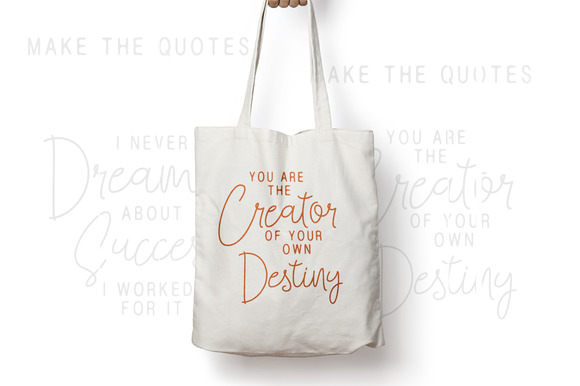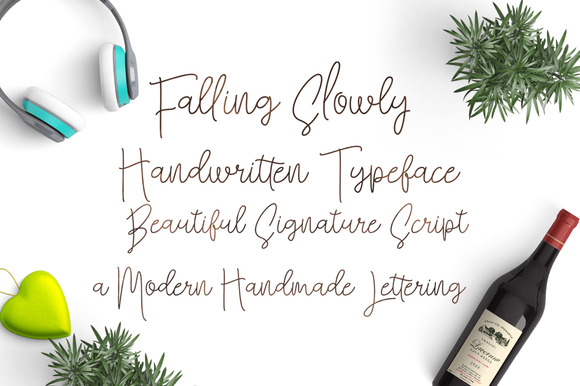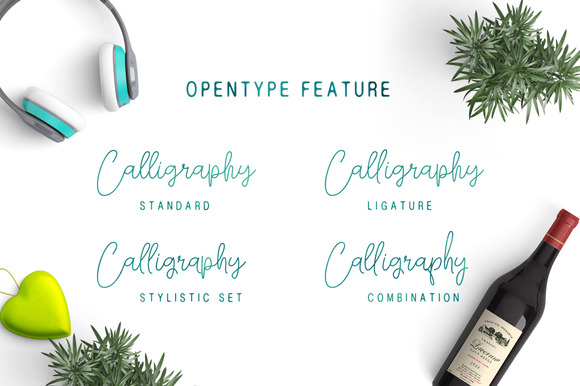
Falling Slowly Font: A Beautiful Handwritten Script Typeface
Falling Slowly Typeface is a beautiful hand written script typeface with a natural look. This stunning font is perfect for designers and crafters who are looking for a unique and elegant way to add a personal touch to their projects. In this article, we’ll take a closer look at the Falling Slowly Font, its features, and how you can use it to elevate your designs.
What is Falling Slowly Font?
Falling Slowly Font is a handwritten script typeface that is designed to mimic the natural flow of handwriting. It has a relaxed and casual feel, making it perfect for a wide range of design projects, from wedding invitations and greeting cards to branding and packaging. The font is created with a focus on legibility and readability, ensuring that your text is easy to read and understand.
Key Features of Falling Slowly Font
- Handwritten Script: Falling Slowly Font is a true handwritten script typeface, with each letter carefully crafted to mimic the natural flow of handwriting.
- Natural Look: The font has a natural, relaxed feel that makes it perfect for designs that require a personal touch.
- Legible and Readable: The font is designed with legibility and readability in mind, ensuring that your text is easy to read and understand.
- Versatile: Falling Slowly Font is perfect for a wide range of design projects, from wedding invitations and greeting cards to branding and packaging.
How to Use Falling Slowly Font
Falling Slowly Font is easy to use and can be incorporated into a wide range of design projects. Here are a few ideas to get you started:
- Wedding Invitations: Use Falling Slowly Font to create beautiful and elegant wedding invitations that set the tone for your special day.
- Greeting Cards: Add a personal touch to your greeting cards with Falling Slowly Font, perfect for birthdays, holidays, and special occasions.
- Branding and Packaging: Use Falling Slowly Font to create unique and eye-catching branding and packaging that stands out from the crowd.
- Digital Designs: Incorporate Falling Slowly Font into your digital designs, such as social media graphics, blog posts, and website headers.
Tips for Using Falling Slowly Font
Here are a few tips to keep in mind when using Falling Slowly Font:
- Keep it Simple: Don’t overcomplicate your design. Falling Slowly Font is perfect for simple, elegant designs that let the font shine.
- Experiment with Colors: Try out different colors and combinations to find the perfect look for your design.
- Mix and Match: Combine Falling Slowly Font with other fonts and design elements to create a unique and eye-catching design.
Falling Slowly Font is a beautiful handwritten script typeface with a natural look that is perfect for designers and crafters. With its elegant and relaxed feel, it’s perfect for a wide range of design projects, from wedding invitations and greeting cards to branding and packaging. By incorporating Falling Slowly Font into your designs, you can add a personal touch and create unique and eye-catching designs that stand out from the crowd.
In conclusion, Falling Slowly Font is a stunning handwritten script typeface that is perfect for designers and crafters. With its natural look and elegant feel, it’s perfect for a wide range of design projects. By incorporating Falling Slowly Font into your designs, you can add a personal touch and create unique and eye-catching designs that stand out from the crowd.